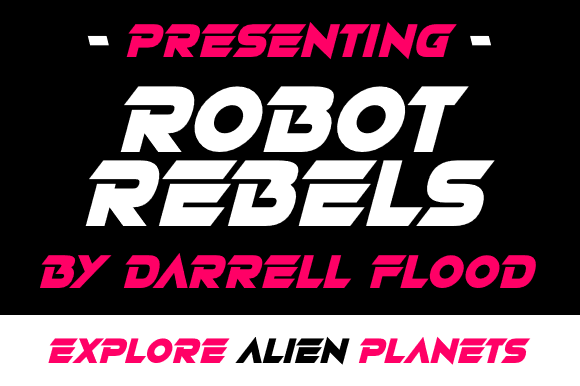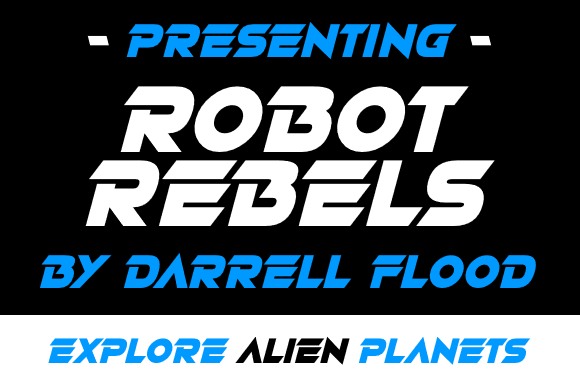
Introduction to Robot Rebels Font
As a designer, have you ever found yourself lost in a sea of blank pages, searching for the perfect font to bring your creative project to life? For me, that moment came when I was working on a futuristic sci-fi concept. I wanted something that would transport my audience to a world of high-tech wonder, but every font I tried just didn’t quite fit. That’s when I stumbled upon the Robot Rebels Font – a game-changing design resource that revolutionized my project and left me wondering how I ever managed without it.
With its unique blend of smooth curves and sharp edges, the Robot Rebels Font is the perfect addition to any high-tech theme, from space exploration to techno music. And the best part? It’s available for a free download, making it an invaluable resource for designers of all levels.
Whether you’re working on a high-quality design for a client or a personal project, the Robot Rebels Font is sure to elevate your work and leave a lasting impression. So why wait? Dive into the world of Robot Rebels Font and discover a new level of creative freedom.
Key Features of Robot Rebels Font
- Unique and futuristic design perfect for creative projects and futuristic themes
- Available in 6 styles, including bold and italic, to cater to various design needs
Honest Review: Robot Rebels Font
I recently had the chance to work with the Robot Rebels Font, and I must say it’s been a game-changer for my creative projects. The font is perfect for anyone looking to add a touch of edginess to their designs.
- High-quality design: The Robot Rebels Font is well-designed, with clean lines and a modern aesthetic.
- Limited font styles: The font only comes in a few styles, which may limit its versatility in certain design projects.
- Not suitable for all projects: The font’s edgy design may not be suitable for all types of projects, such as children’s books or family-friendly designs.
Overall, I’m really impressed with the Robot Rebels Font. It’s a great addition to any designer’s toolkit, and I’ll definitely be using it in my future projects.
The Robot Rebels Font is commonly used in designs related to technology, gaming, and science fiction. It’s also great for creating eye-catching headings and titles for your creative project.